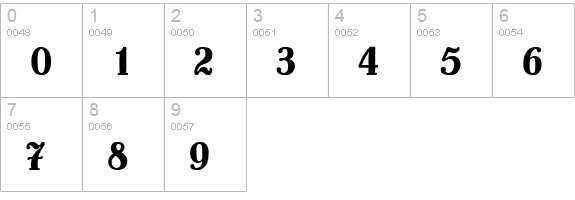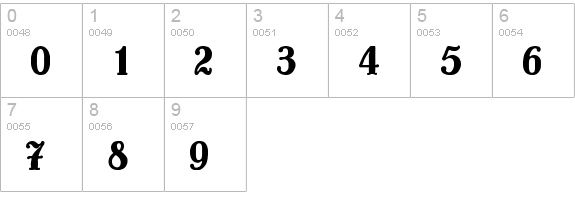
Lo-Type (R) Regular Font Details
Lo-Type (R) Regular is the standard, neutral variant in the Lo typeface family \xE2\x80\x94 well suited to general body text, paragraphs, and standard typographic work.
Lo-Type (R) Regular font is a versatile and modern typeface that is perfect for a wide range of design projects. Its clean lines and unique style make it a great choice for both print and digital applications. With its classic yet contemporary look, Lo-Type (R) Regular font adds a touch of sophistication to any design. This font is freely available to download at FontsMarket.com, making it accessible to designers and creatives looking to elevate their work with a high-quality typeface. Whether you're working on a branding project, a website design, or any other creative endeavor, Lo-Type (R) Regular font is sure to impress. With its sleek and professional appearance, this font is a must-have in any designer's toolkit. Download Lo-Type (R) Regular font today and take your designs to the next level.